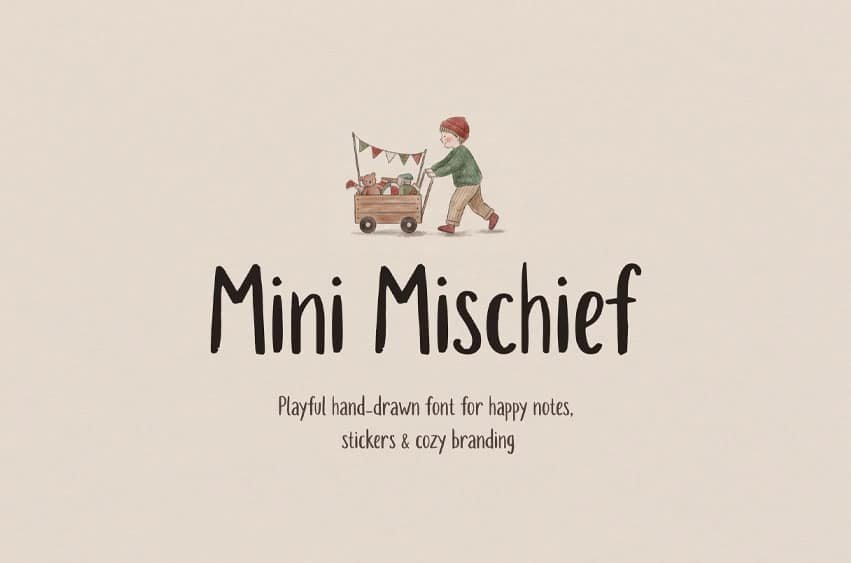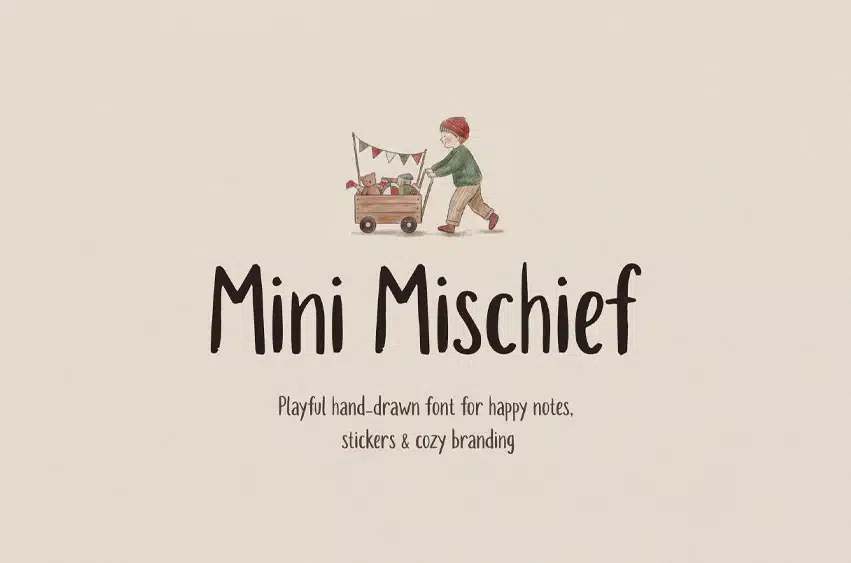
Mini Mischief Font is a playful hand-drawn font with a cute, childlike vibe — imperfect in the best way. It’s friendly, cozy, and full of personality, perfect for designs that need warmth and a little mischief.
Use it for kids projects, stickers, planners, greeting cards, classroom materials, packaging, social posts, quotes, book covers, and cozy branding.